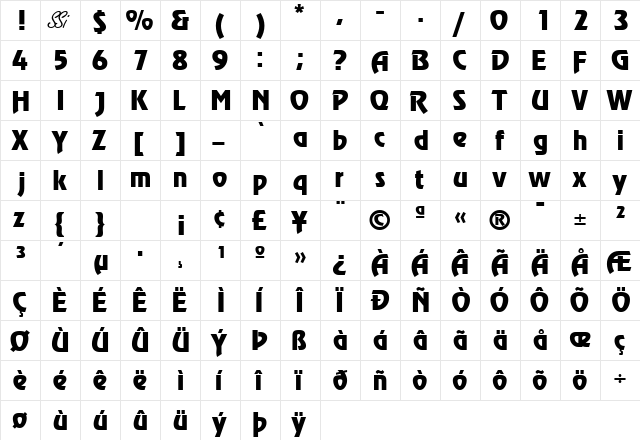
ChorusLineSSK Bold
Design Context for ChorusLineSSK Typeface
ChorusLineSSK is a composed and adaptable typeface that performs quietly and consistently across a wide range of design contexts. Its bold stroke weight gives it real presence on the page.